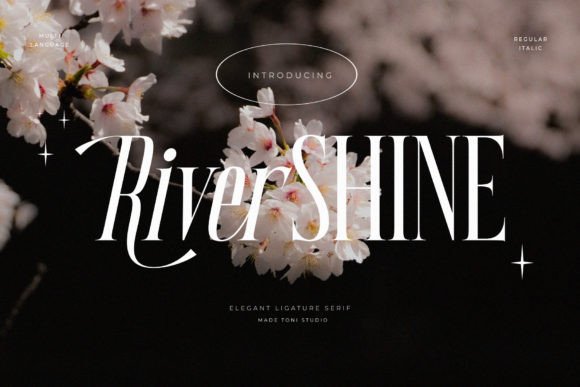
**River Shine: A Seraph of Sophistication for Your Creative Endeavors**
In a world saturated with humdrum fonts, River Shine emerges as a beacon of distinction, a font family that exudes sophistication and charm, ready to breathe life into your creative visions. Welcome to a font family that's not just a collection of letters, but an expression of timeless elegance.
Picture this: your designs adorned with River Shine, a font as captivating as a river's shimmer under the moonlight, a font that commands attention without overpowering the essence of your work. This font is a match made in heaven for those seeking to craft logotypes that leave an imprint, magazine designs that transport readers to new realms, product packaging that demands a second glance, and invitations that evoke a sense of anticipation.
The brilliance of River Shine lies in its versatility, its ability to adapt seamlessly to various creative endeavors. It's a font that complements both the delicate and the bold, the classic and the contemporary. Let River Shine be your muse as you embark on a creative journey, a journey where your designs will radiate sophistication and leave an indelible mark on the hearts of your audience.
To unveil the full splendor of River Shine, simply embrace the power of PUA encoding, a key that unlocks a treasure trove of glyphs and ligatures, granting you the freedom to explore endless creative possibilities. Unleash your imagination and let River Shine guide you towards designs that shimmer with brilliance.